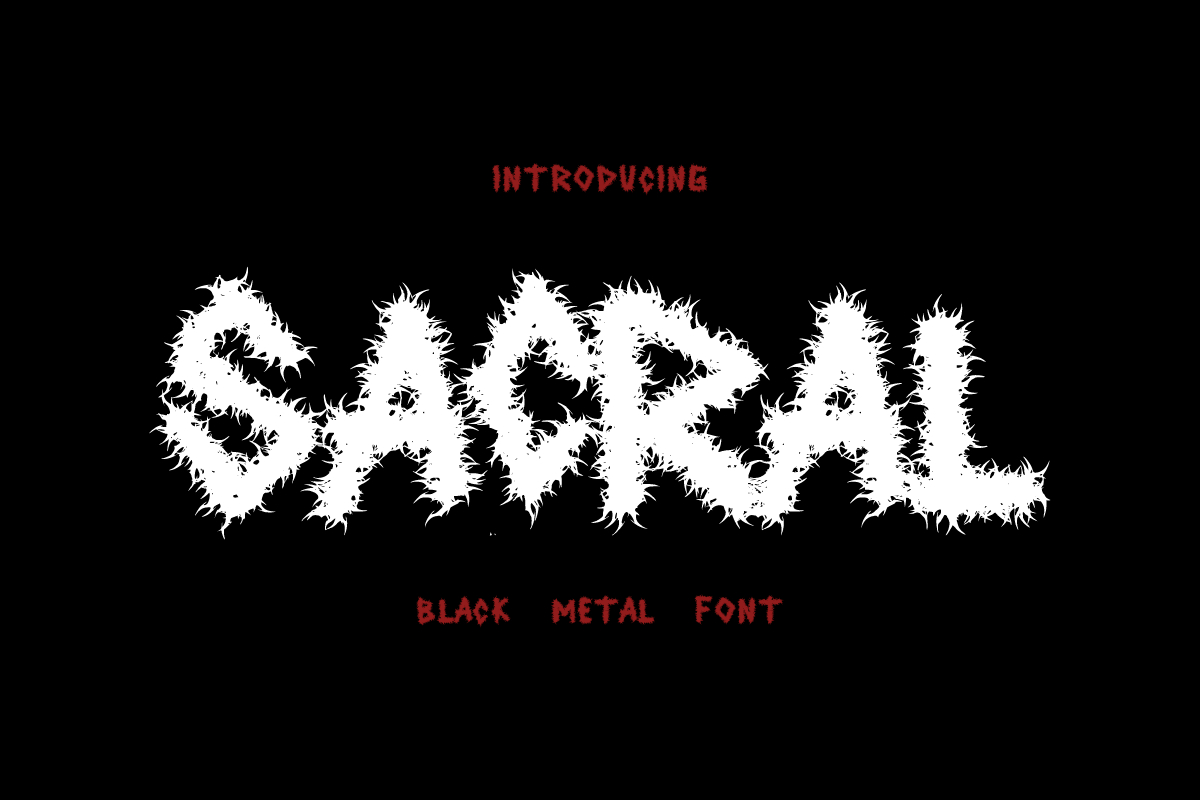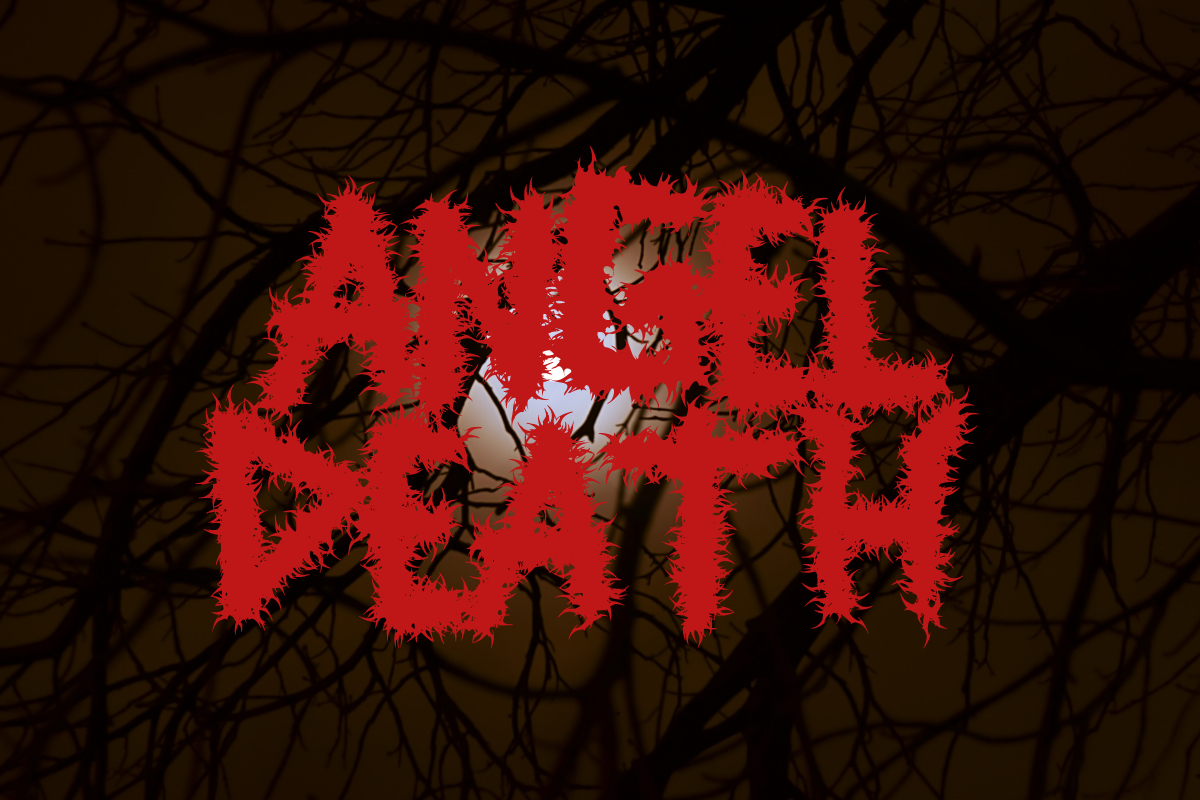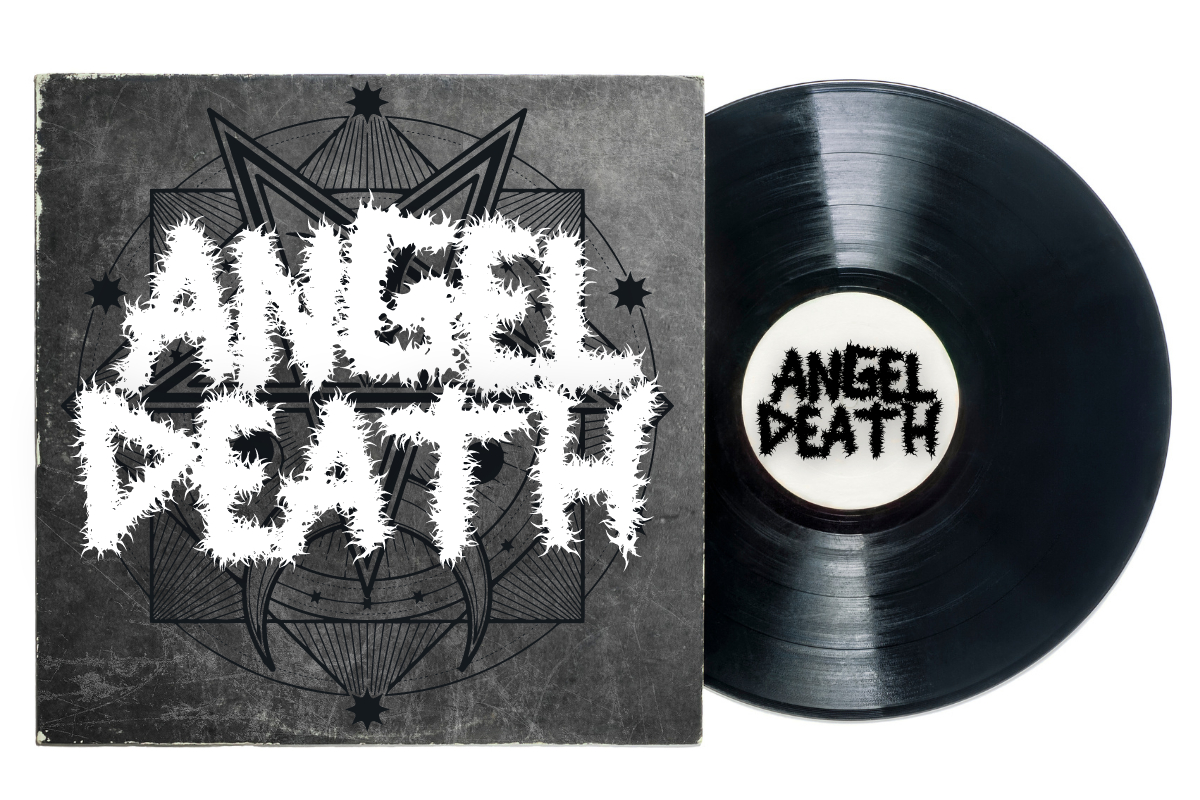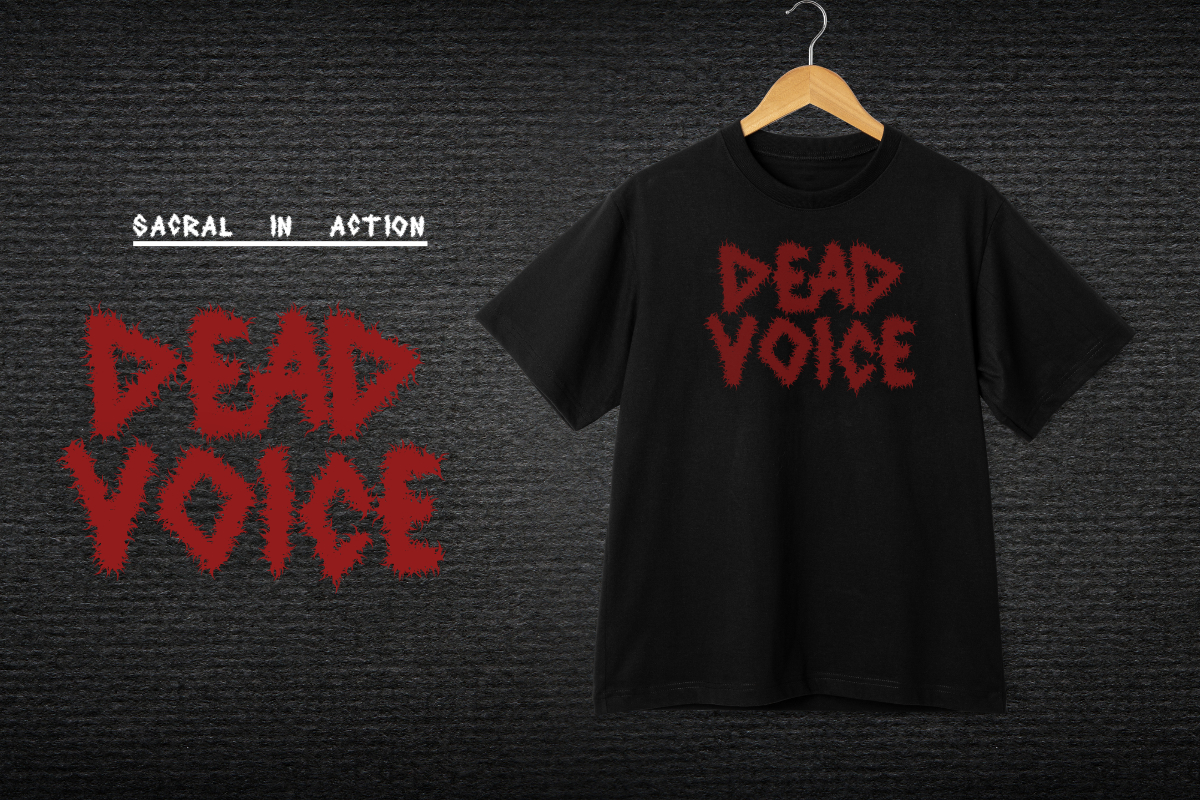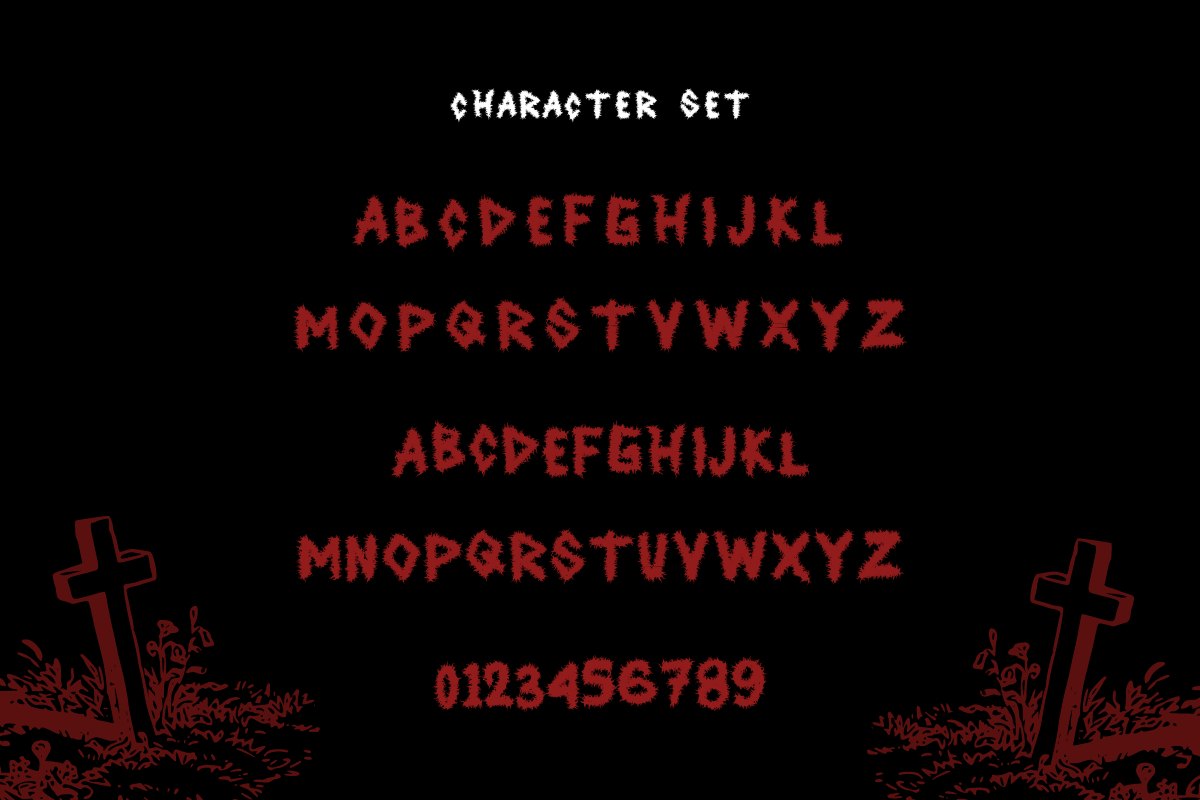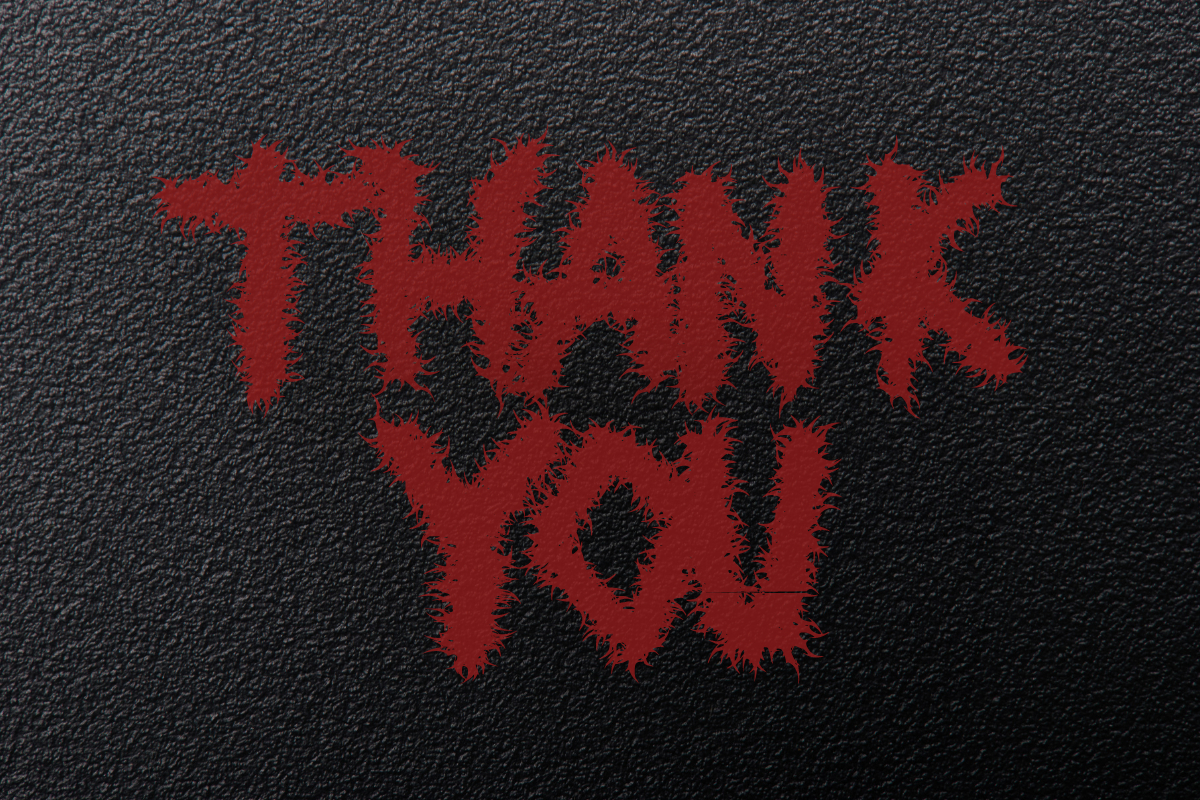
Sacral Font
About Sacral Font
Sacral is a blackletter font with black metal handdrawn style. With an otf file feature that is very compatible on Mac/Windows, this font is cool for merchandise, t-shirts, stickers, apparel businesses, the black metal industry, band logos, and many other ideas.